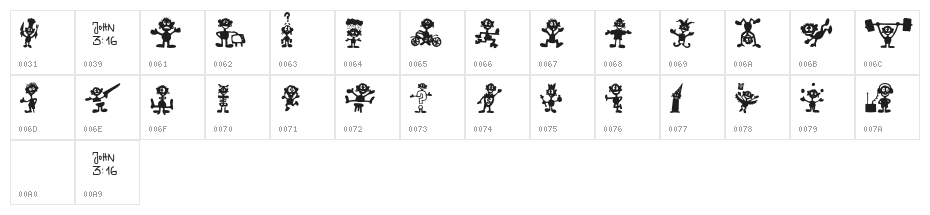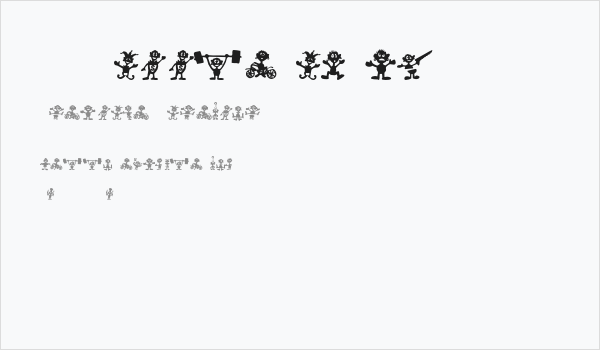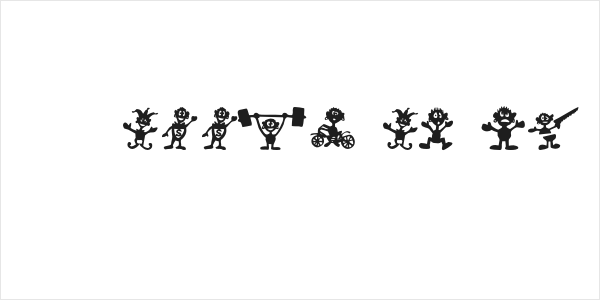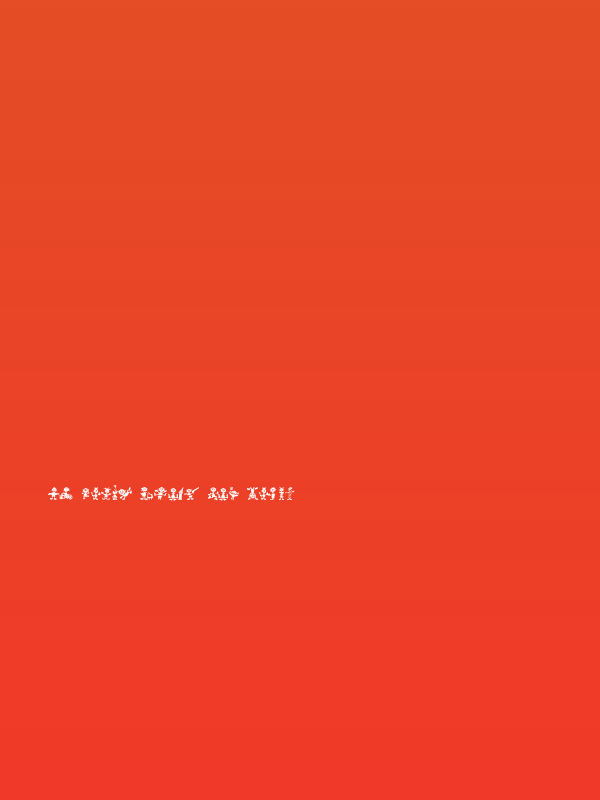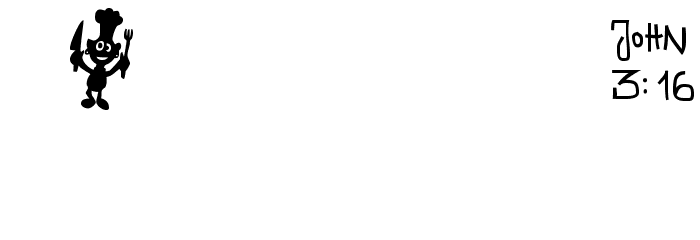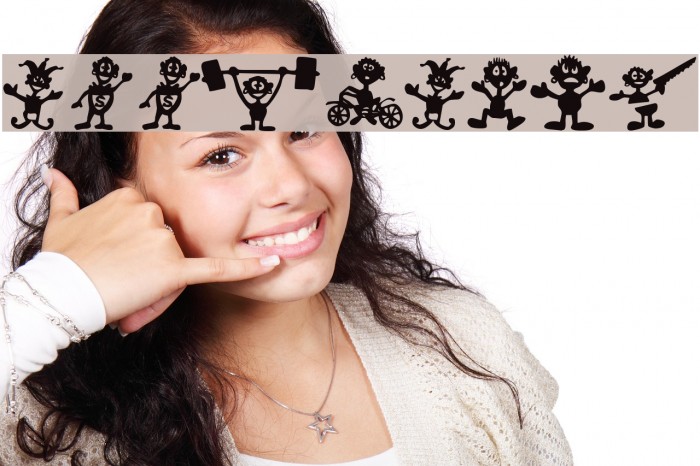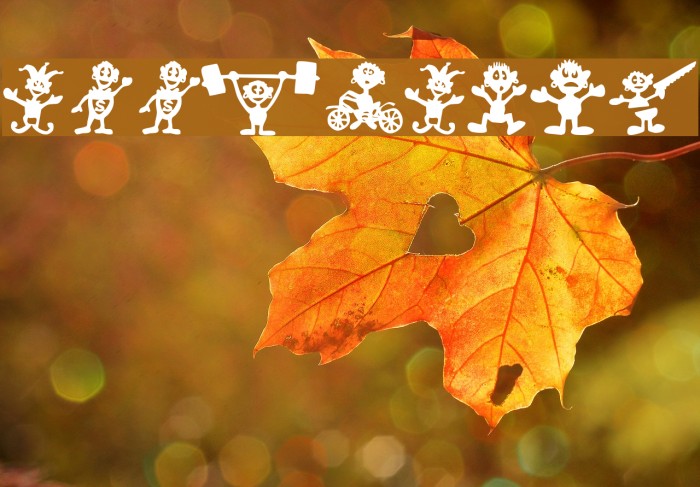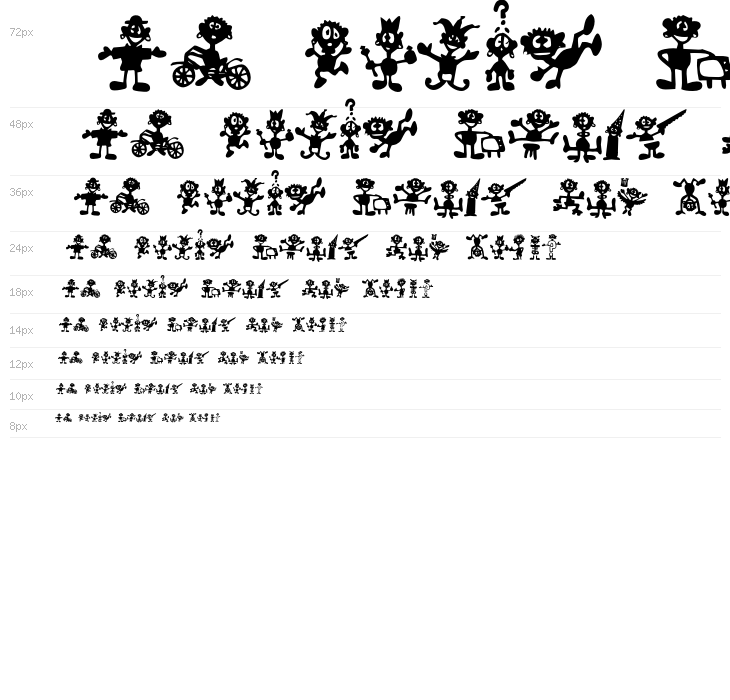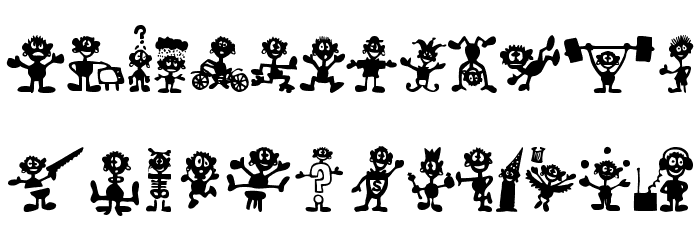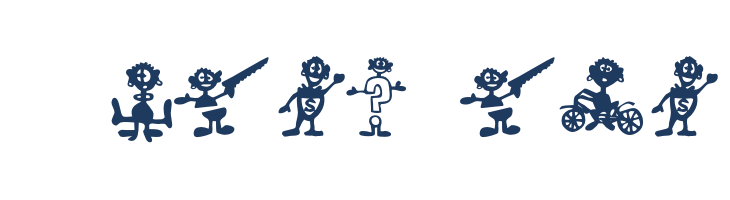
FE-LittleBigMan Font
FE-LittleBigMan Description
This is a whimsical and playful decorative font featuring cartoon-like characters that resemble little figures engaged in various activities. Each character is uniquely designed, incorporating elements such as hats, tools, and different postures, giving the font a lively and humorous appearance. The characters are bold and have a consistent stroke width, making them stand out. The font is highly decorative and not intended for traditional text but rather for creative and fun projects. The overall style is imaginative and artistic, perfect for adding a touch of humor and creativity to any design.
| Use Case | Logos, Posters, Creative Invitations |
| Proposed Projects | Ideal for children's books, playful posters, creative invitations, and fun branding projects. |